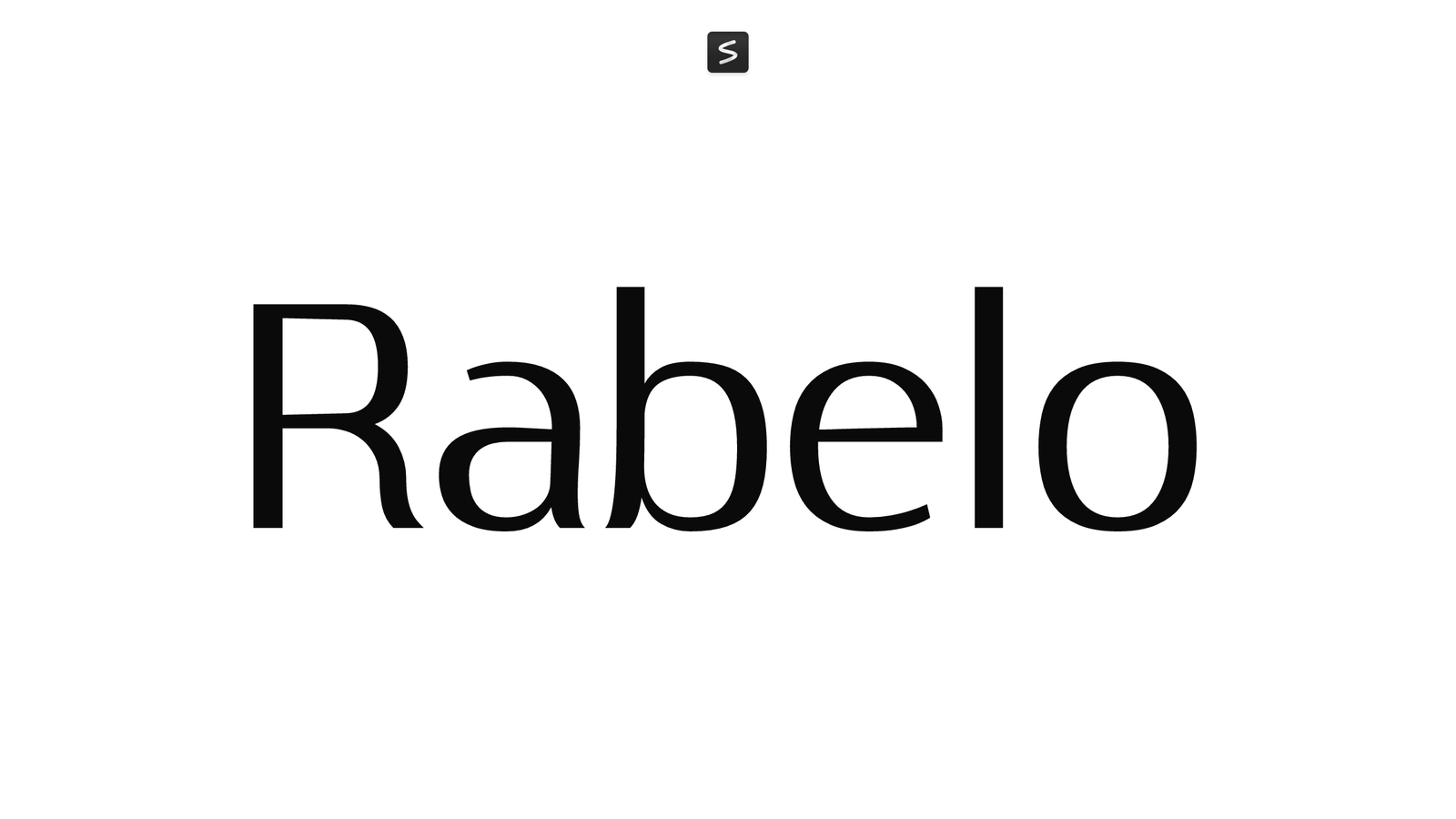
Rabelo is a geometric sans-serif designed by Pedro Teixeira Foundry. It splits the difference between utility and friendliness, with clean proportions and steady letterforms that work equally well in editorial layouts or digital interfaces.
The design prioritizes legibility without sacrificing character. Its geometric construction gives it a straightforward, approachable feel, while balanced spacing and proportions make it comfortable to read at any size. Rabelo pairs functionality with enough personality to keep layouts from feeling sterile.
It works well for body copy in magazines and websites, as well as headlines and branding applications. If you need a dependable sans-serif that won’t disappear into the background, Rabelo is a solid choice.